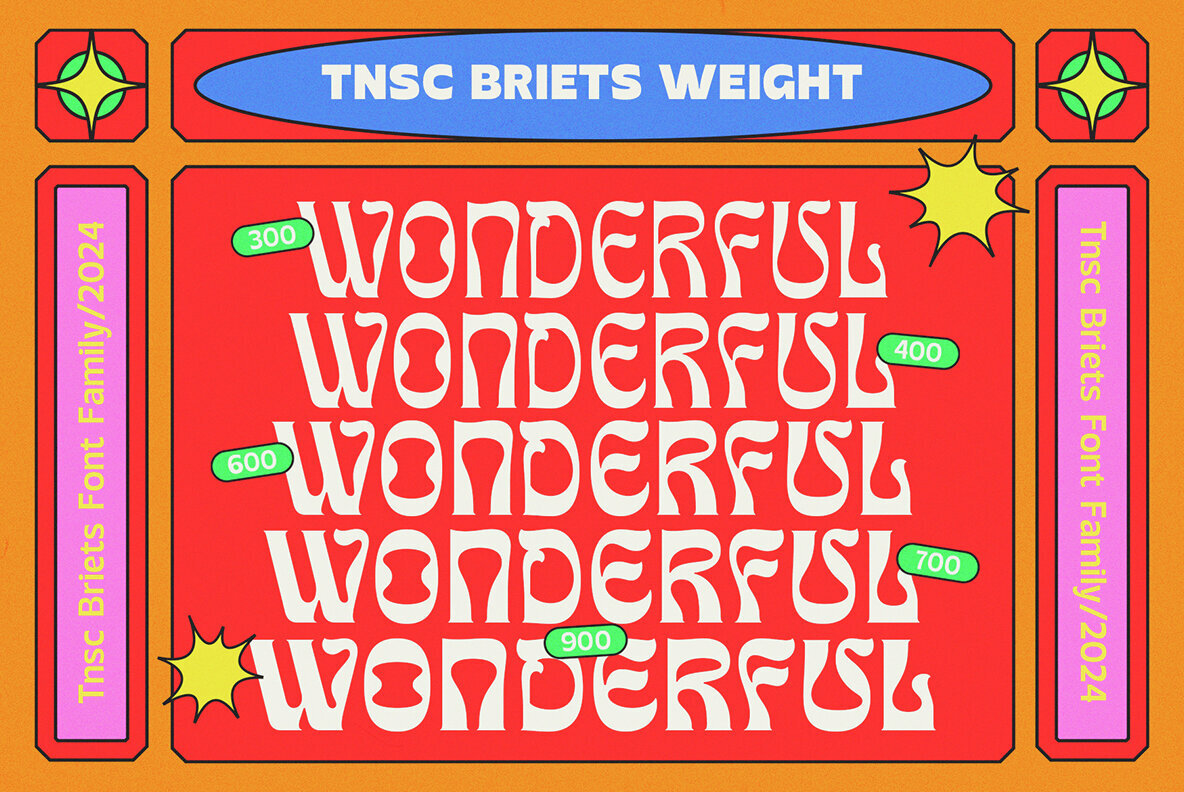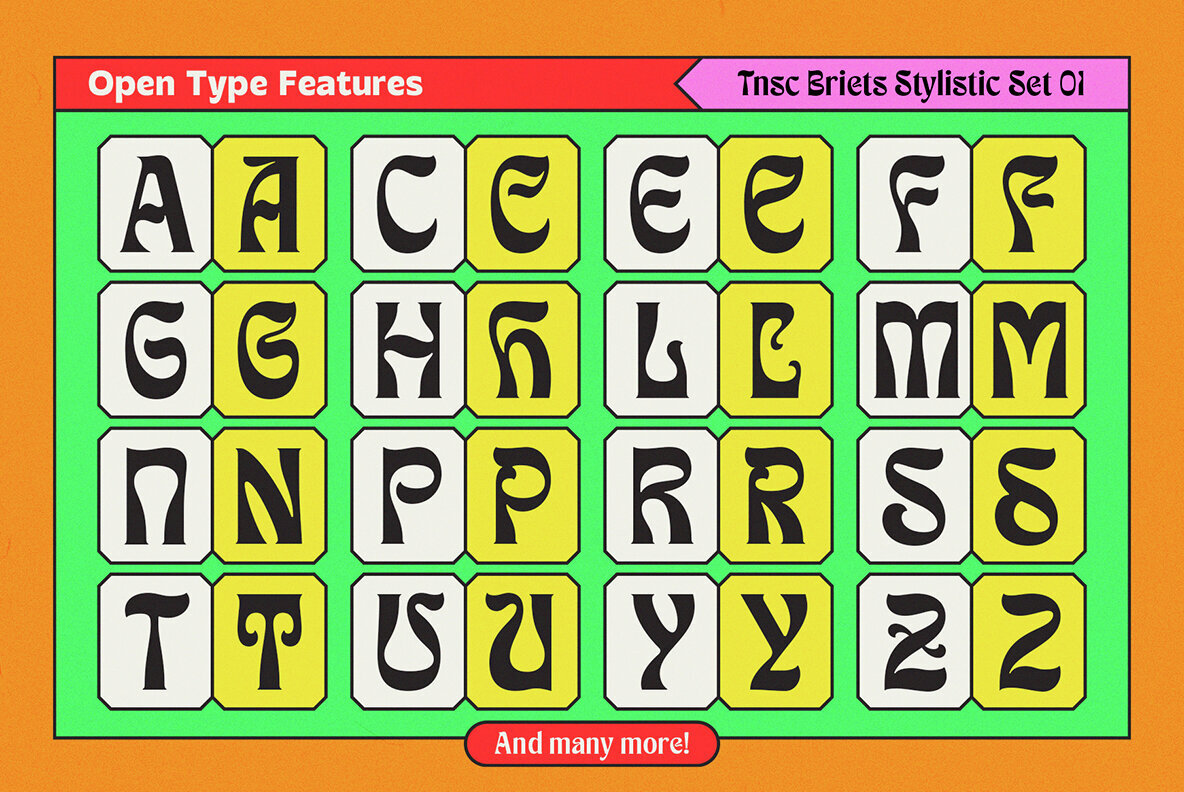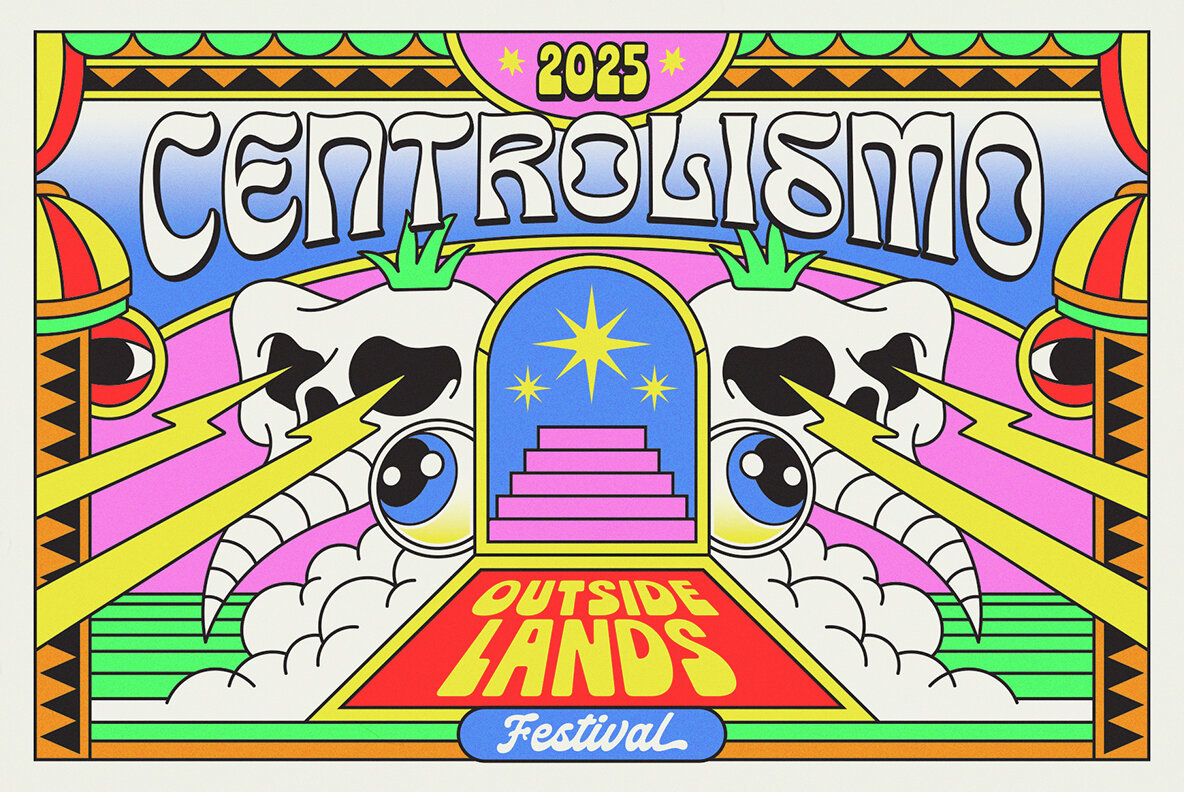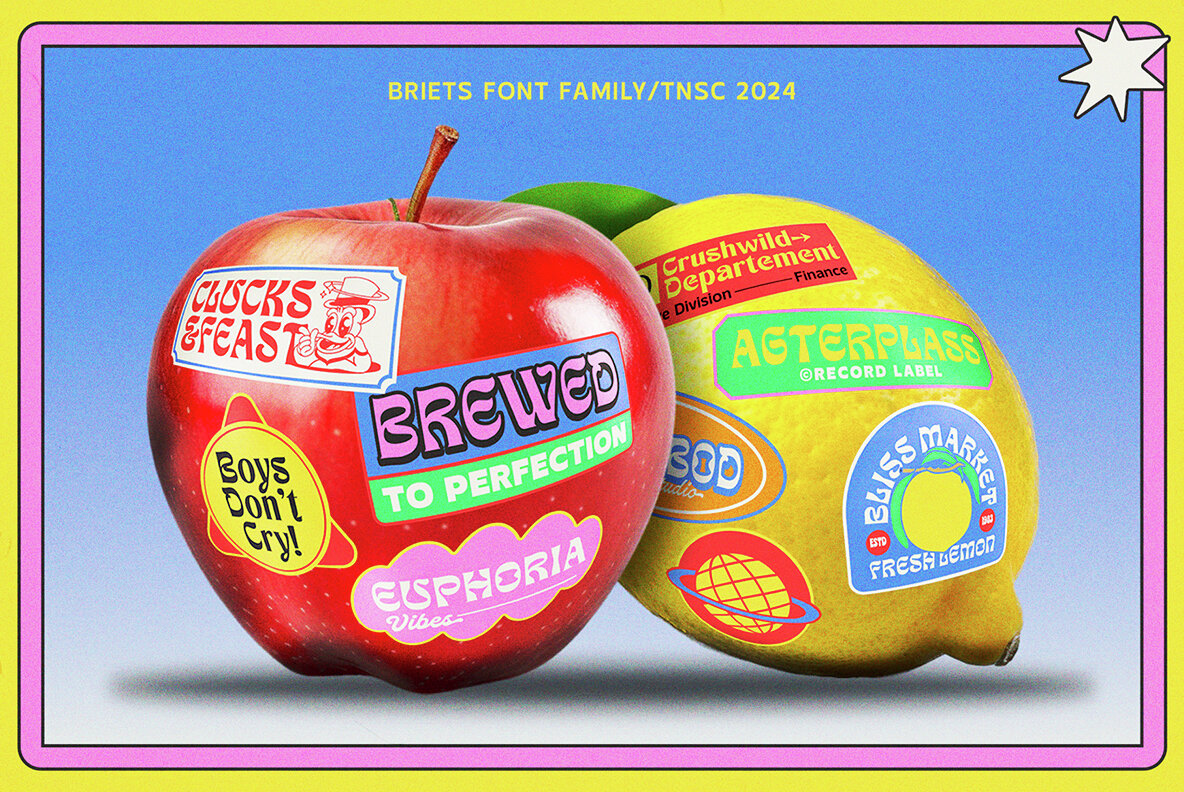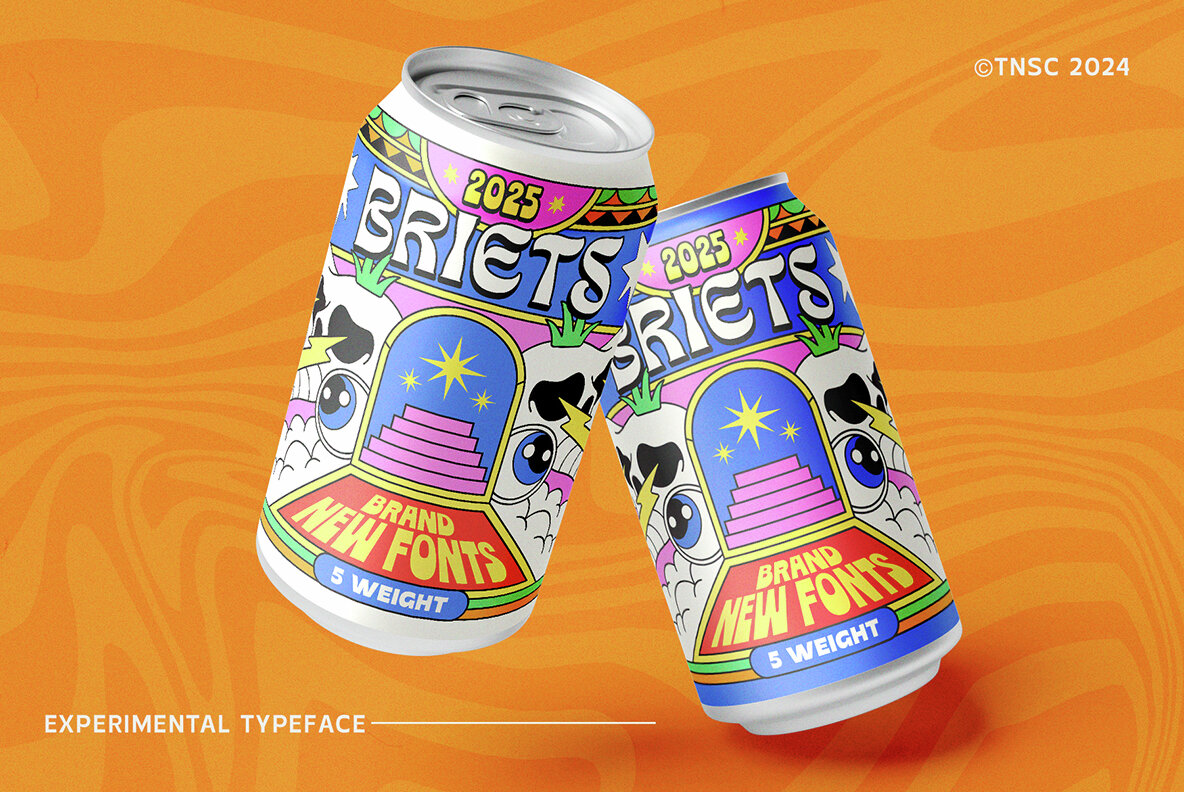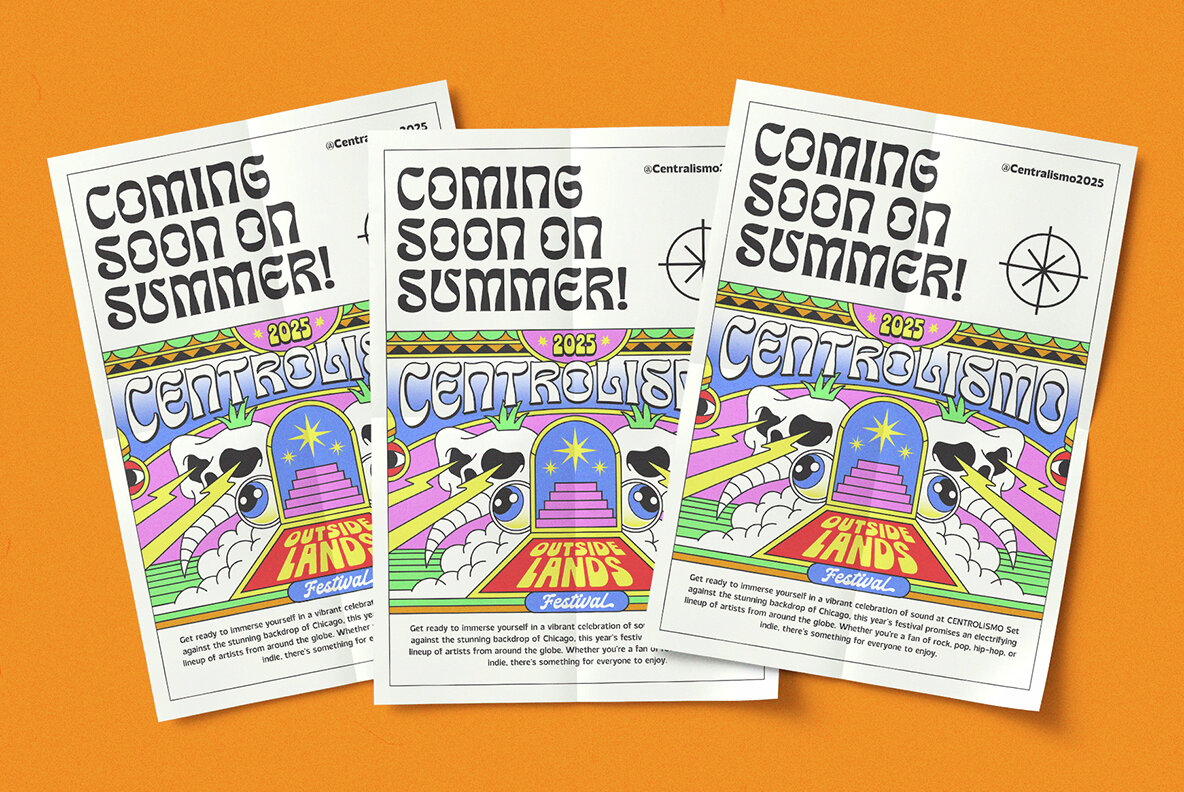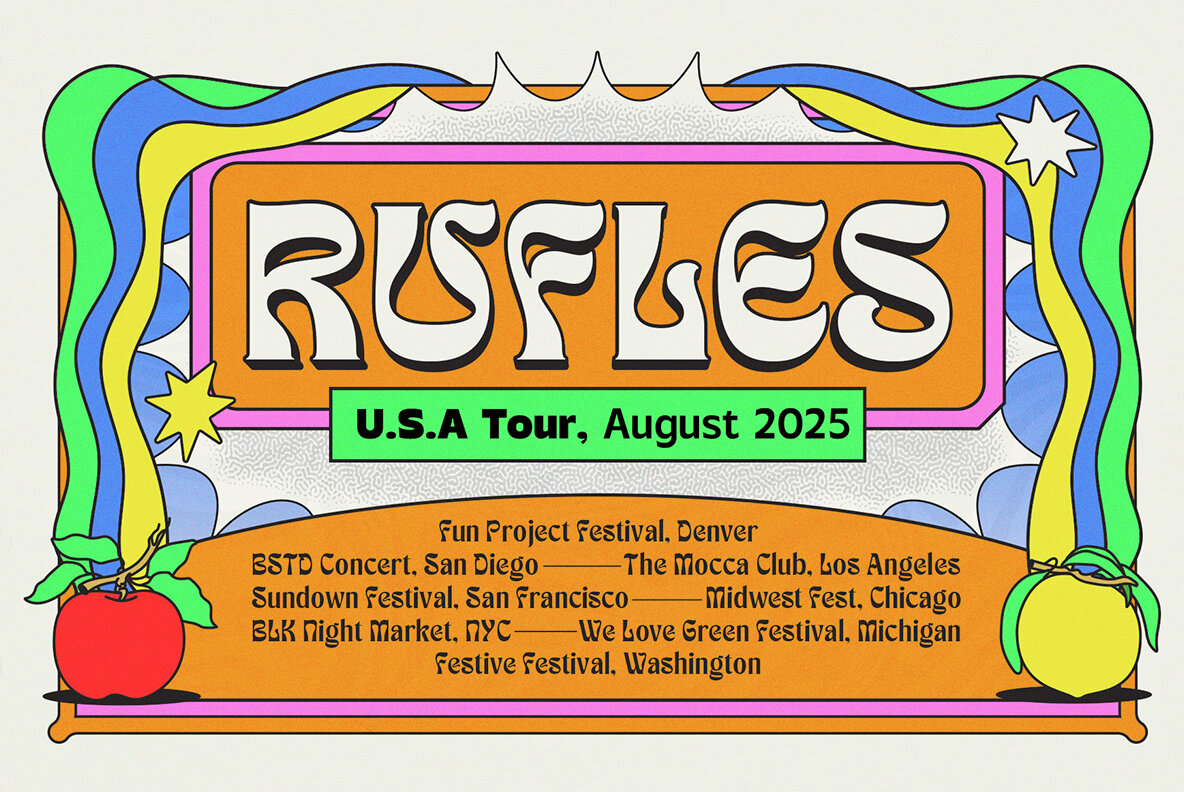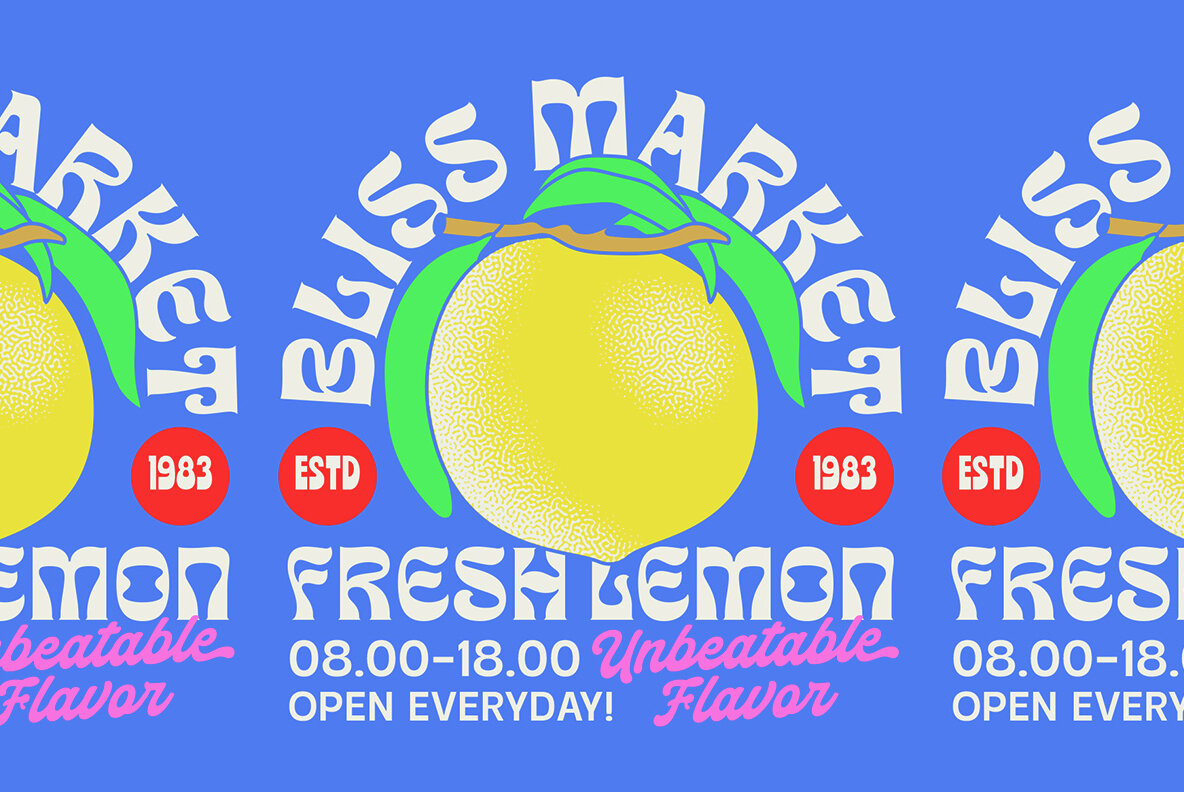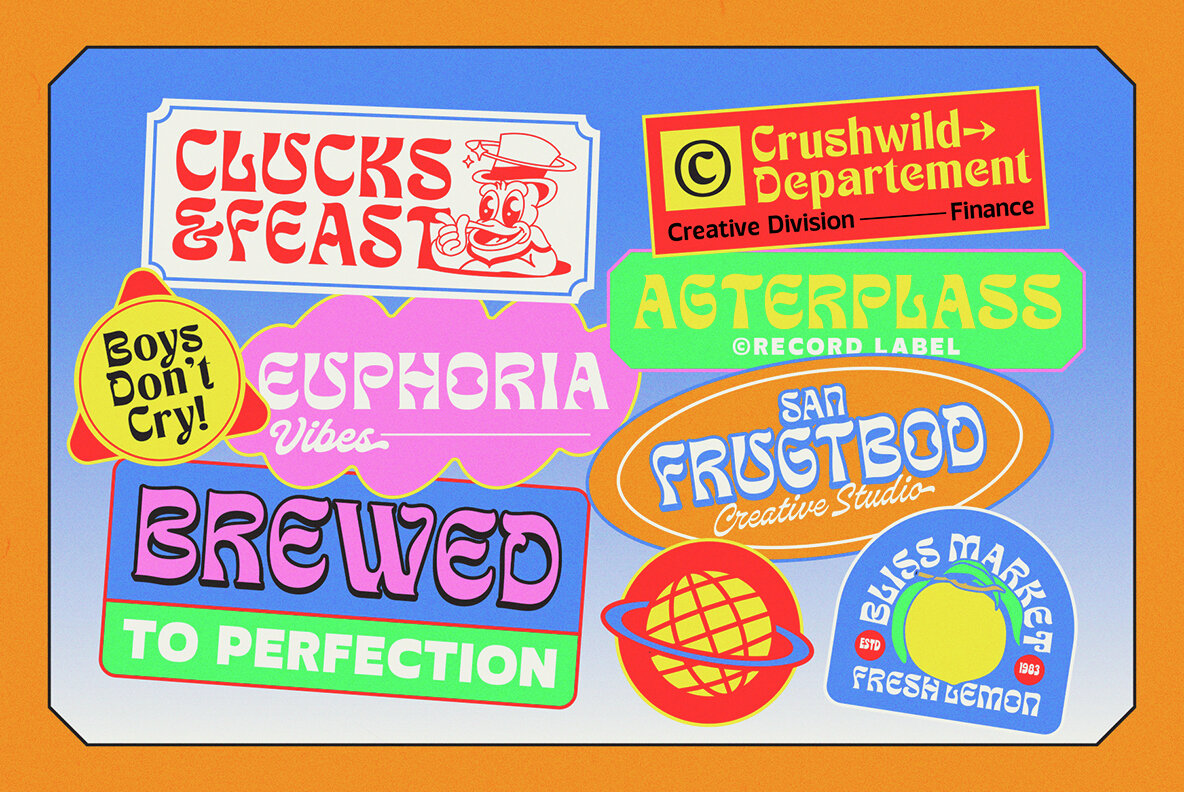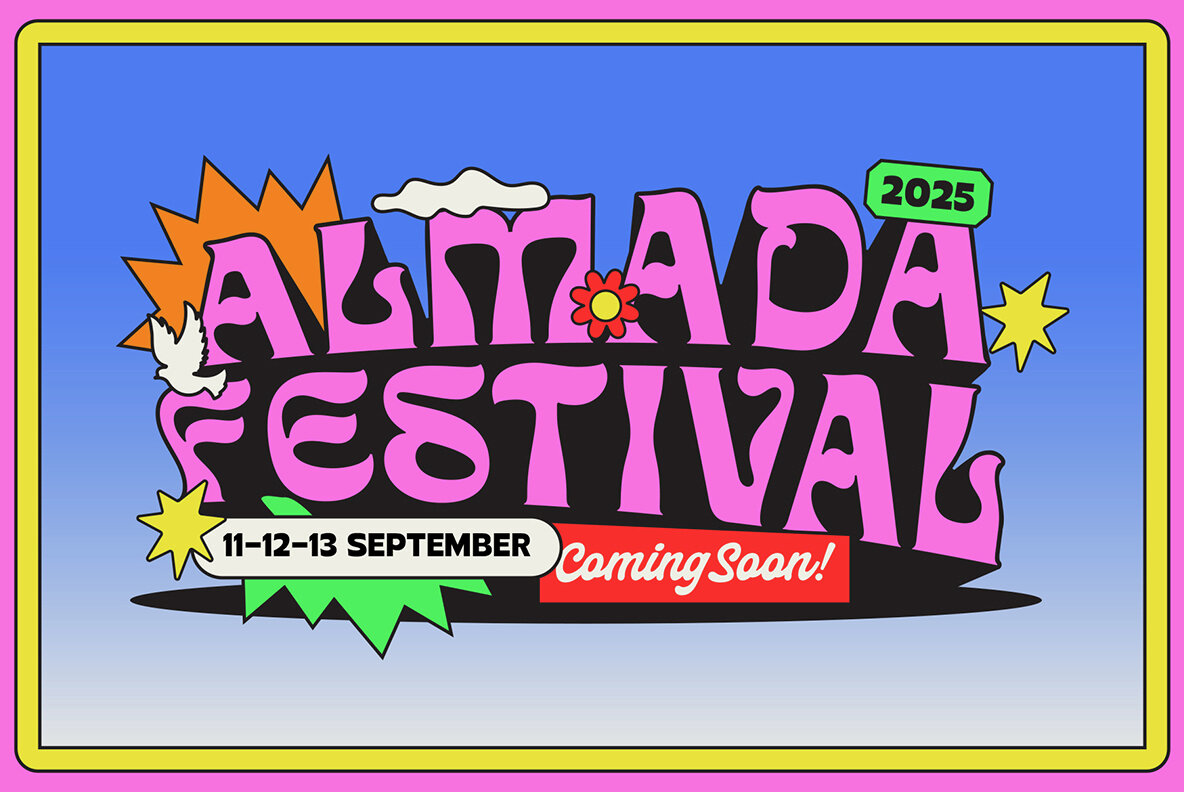
Briets Font
Briets is an experimental font inspired by the psychedelic era, designed to bring a touch of vintage flair to your projects. This versatile font family includes five unique styles: Light, Regular, Medium, Bold, and Heavy. Each weight provides a distinct visual impact, offering flexibility for various design needs—from subtle text to eye-catching headlines.
In addition to its range of weights, Briets also features stylistic and ligature sets, enabling more creative freedom and customization. Whether you're working on posters, album covers, or other graphic design projects, Briets offers the stylistic diversity to make your work stand out.